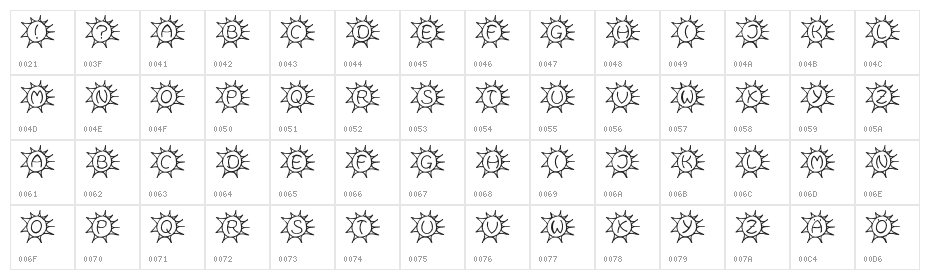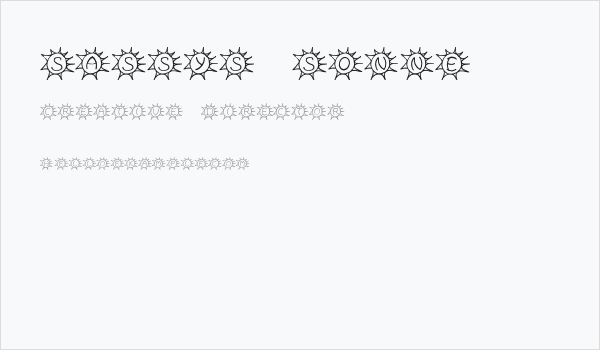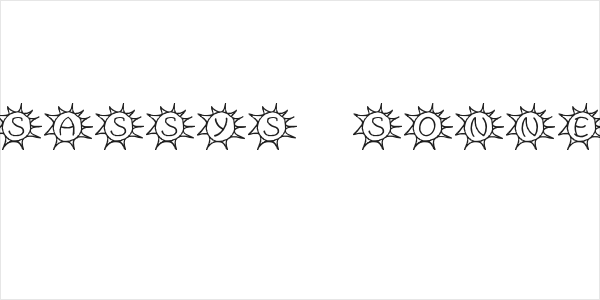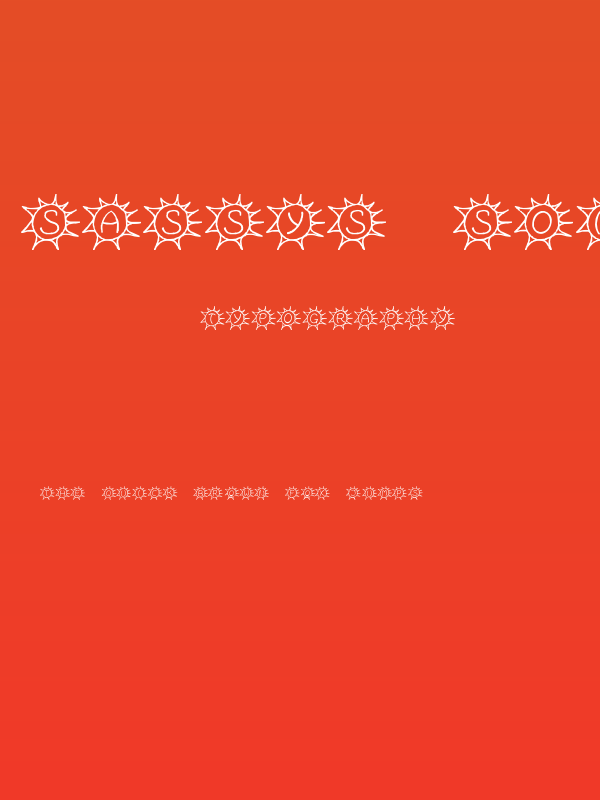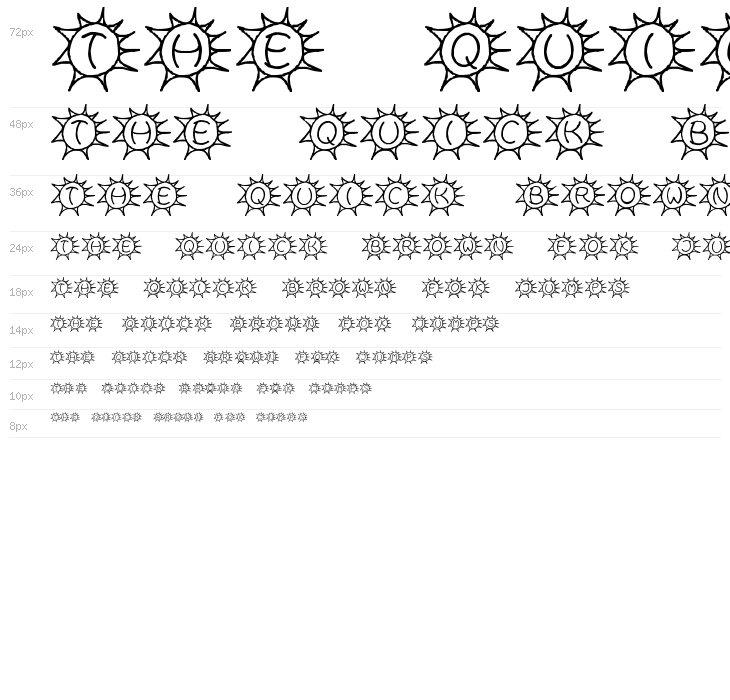
Sassys Sonne Font
Sassys Sonne Description
This playful and decorative font features each character encased within a stylized sunburst design, giving it a unique and whimsical appearance. The letters are bold and clear, making them stand out against the intricate sun motif. This font is perfect for projects that require a fun and eye-catching aesthetic, such as children's books, summer-themed events, or creative branding. The consistent sunburst pattern around each character adds a cohesive and engaging visual element, making it ideal for titles and headings.